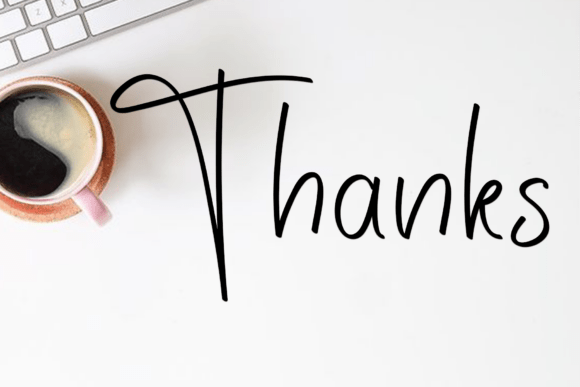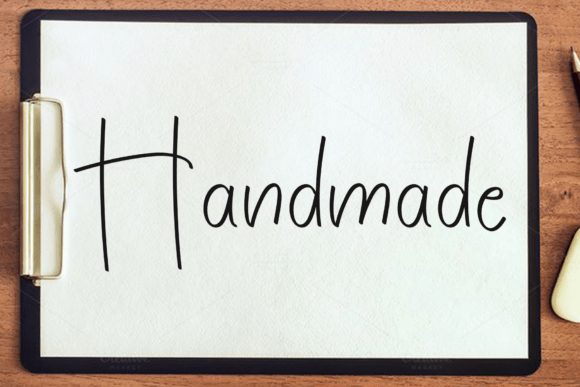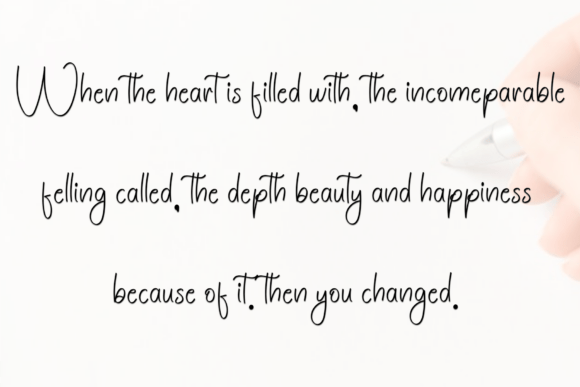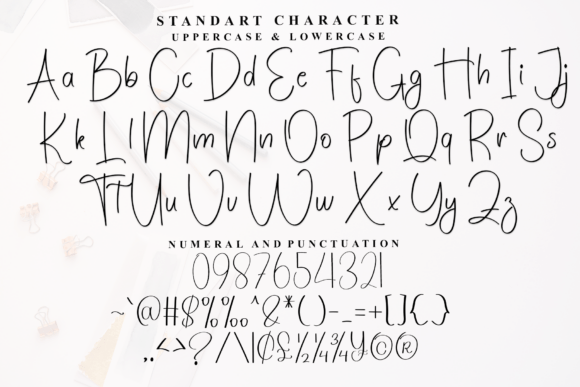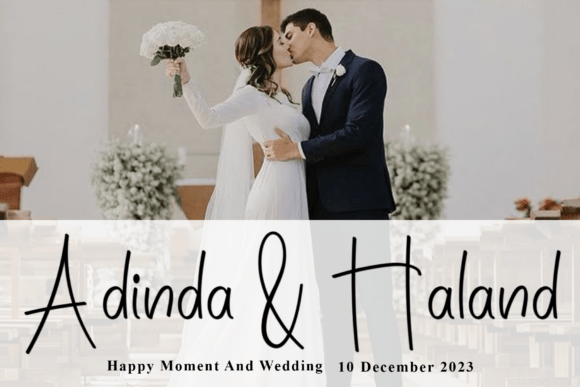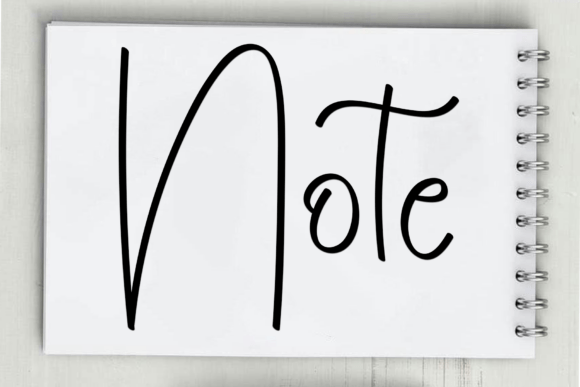
The Perfect Touch for Your Creative Projects
Do you remember the moment when a simple font choice elevated your entire design project? For me, it was a late-night brainstorming session when I stumbled upon the Delicate Font – a beautiful and eye-catching typeface that instantly transformed my ideas into something special.
Delicate Font is more than just a pretty face; it’s a versatile and meaningful design element that brings a unique touch to any project. Its soft strokes and distinctive character make it perfect for design projects, crafts, and other creative works. Whether you’re a seasoned designer or a hobbyist, this natural font style is sure to enhance your designs and captivate your audience.
Delicate Font Key Features
- Font Family: Delicate Font is a script font, designed to convey elegance and sophistication.
- Unique Characteristics: Delicate Font features intricate details, flowing lines, and subtle flourishes, making it ideal for high-end branding, invitations, and wedding stationery.
Delicate Font Review
Overall, I’m quite impressed with the Delicate Font, but like any design element, it has its strengths and weaknesses. Let’s dive in!
- Soft, elegant curves that evoke a sense of whimsy and romance.
- Delicate yet legible, making it perfect for body text or titles in a variety of contexts.
- Supports a wide range of languages, making it a great option for global designs.
- Works beautifully in digital and print formats, adapting to different resolutions and sizes.
- May not be the best choice for bold, attention-grabbing headlines or titles that require a lot of impact.
- Can be overwhelmed by bold or bright backgrounds, losing some of its delicate charm.
- Lacks a clear, defined stroke, which might make it difficult to read at very small sizes.
While Delicate Font may not be the most versatile or attention-grabbing option, it’s a beautiful and elegant choice for a wide range of designs. Its soft curves and delicate nature make it perfect for romantic or whimsical projects, and its language support and adaptability make it a great option for global designs.
Delicate Font is ideal for:
- Formal event invitations and announcements
- High-end product packaging and branding
- Luxury magazine and brochure design
Alternatives to Delicate Font
Caslon
Caslon is a classic serif font that is suitable for body text and titles. It has a traditional feel and is often used in formal and elegant designs. Caslon is a good alternative to Delicate Font when you want a more timeless and sophisticated look.
Comparison: Caslon has a more classic and traditional feel compared to Delicate Font, which is more modern and elegant.
Lato is a sans-serif font that is highly legible and versatile. It is suitable for both body text and titles and can be used in a wide range of designs. Lato is a good alternative to Delicate Font when you want a clean and modern look.
Comparison: Lato is more modern and minimalist compared to Delicate Font, which has a more elegant and refined feel.
Playfair Display is an elegant and refined serif font that is suitable for titles and headings. It has a luxurious feel and is often used in high-end designs. Playfair Display is a good alternative to Delicate Font when you want a more luxurious and sophisticated look.
Q: What is the recommended line height for using Delicate Font?
The recommended line height for Delicate Font is 1.2-1.5 times the font size. This allows for comfortable reading and prevents the text from becoming too crowded. For example, if you’re using a 14-point font, a line height of 16.8-21 points would be suitable.